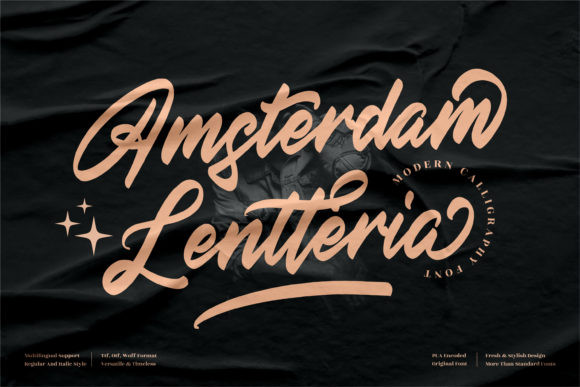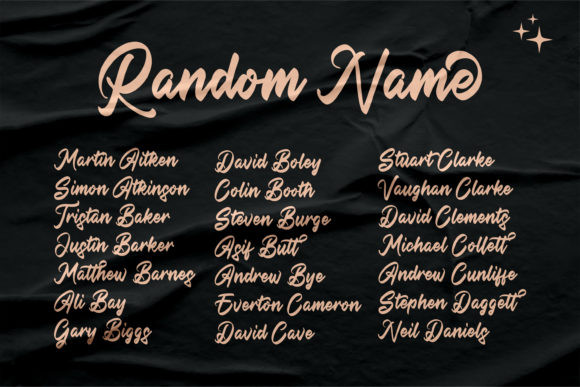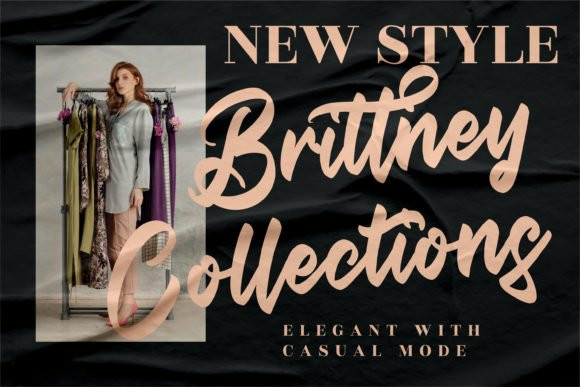
Amsterdam Lentteria Font
Amsterdam Lentteria is an elegant script font with a contemporary atmosphere and impeccable form, inspired by timeless classic calligraphy. Not too thin and not too thick, balanced and varied, this font was designed to enhance the beauty of your projects.